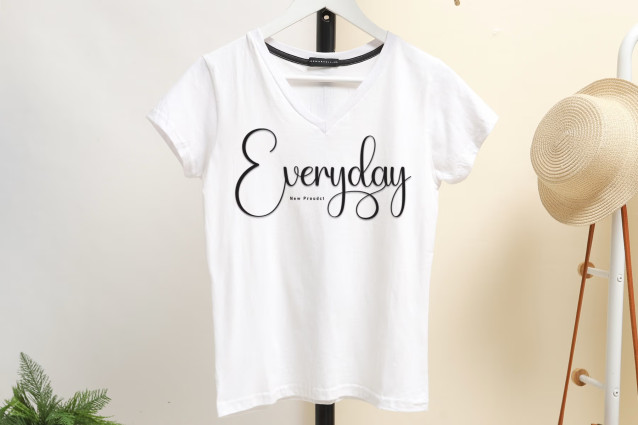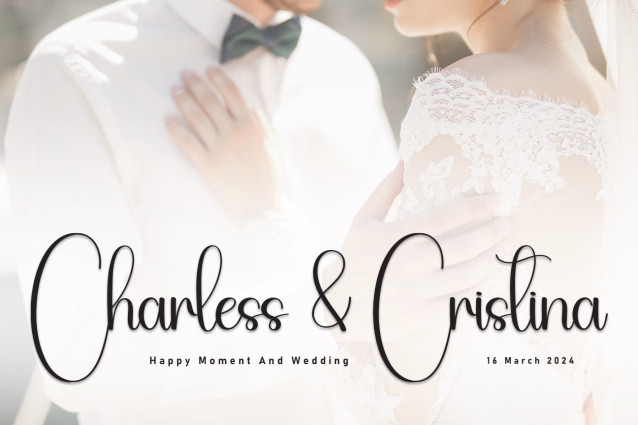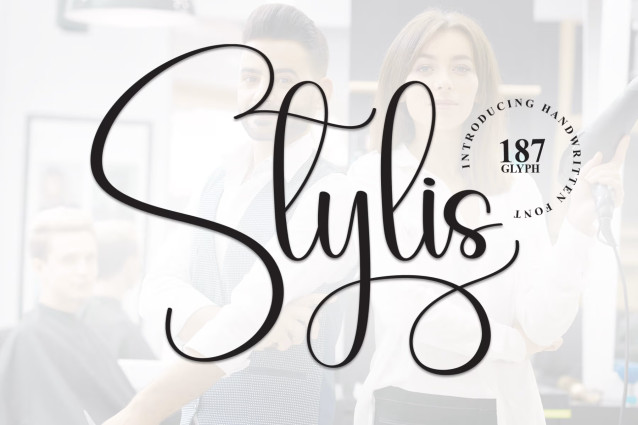
Stylis Font
Stylis Font – special creative products for you, our products will give you an extraordinary experience. The latest style letters are perfect for wall displays, wedding invitations, social media post logos, advertisements, product packaging, product designs, labels, photography, watermarks, invitations, stationery, and any project that requires taste handwriting.